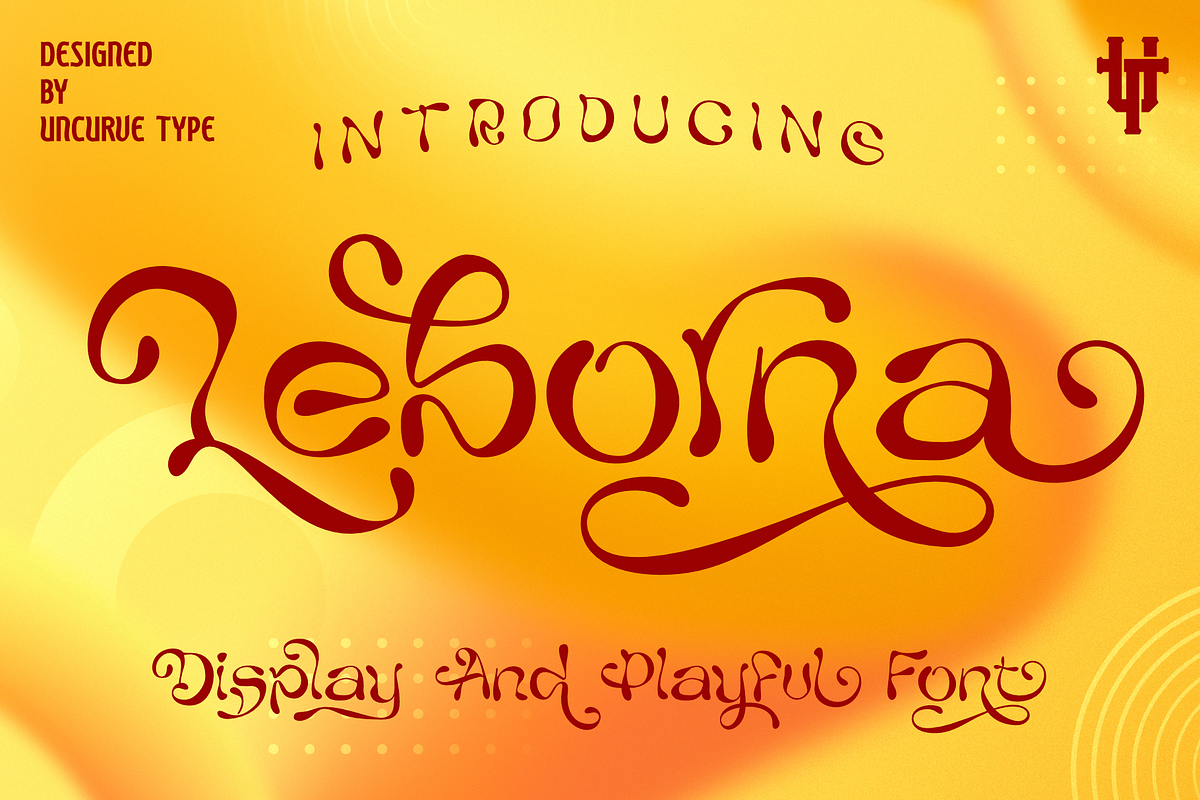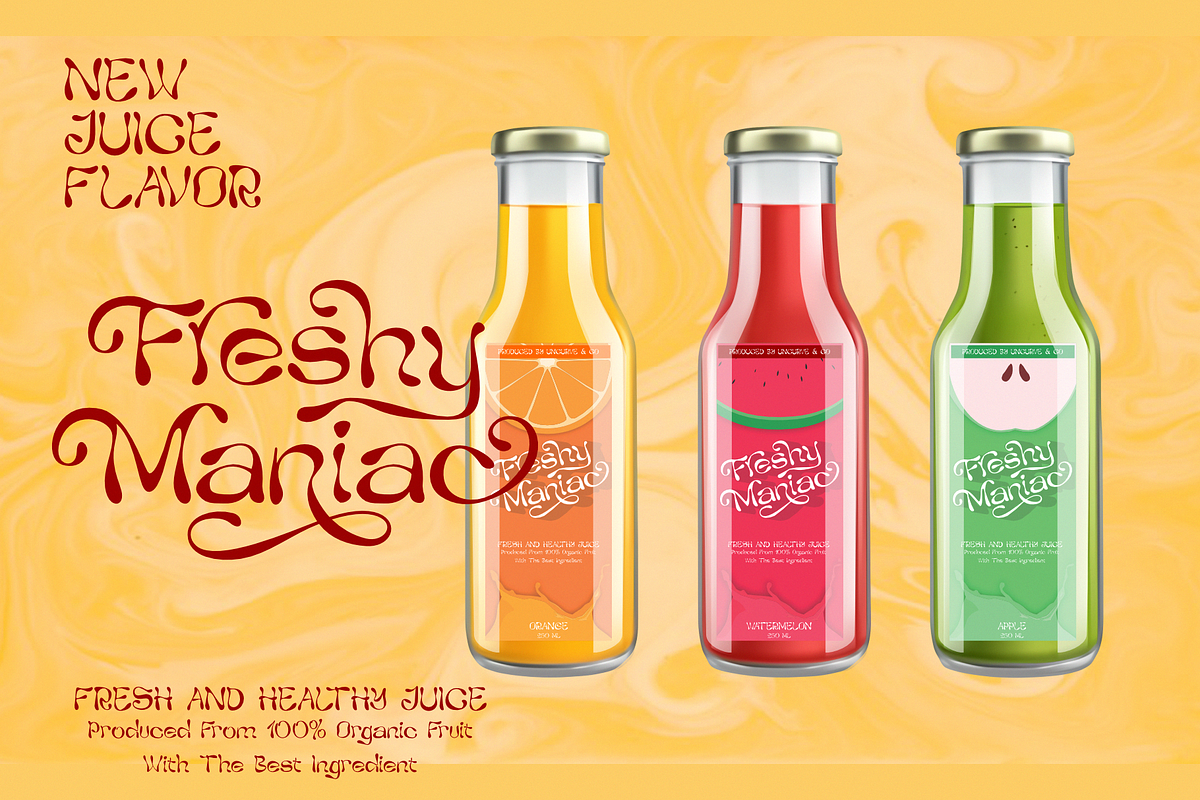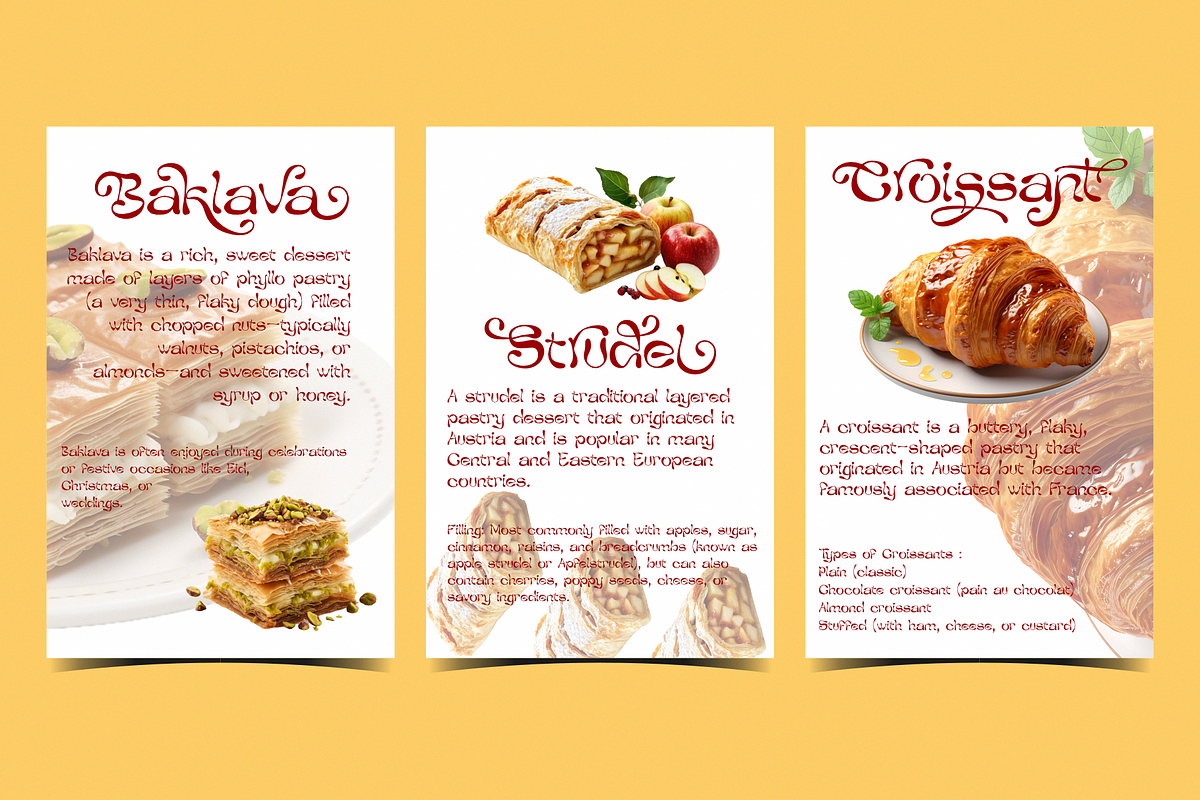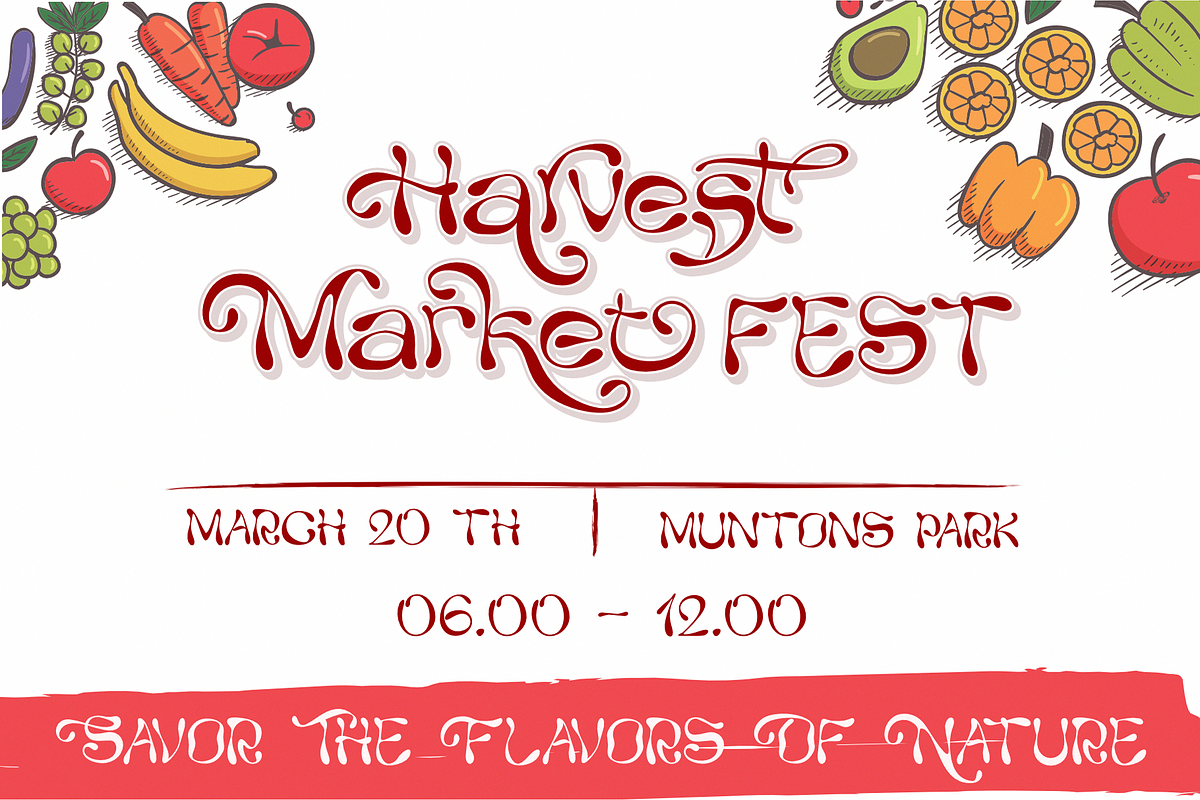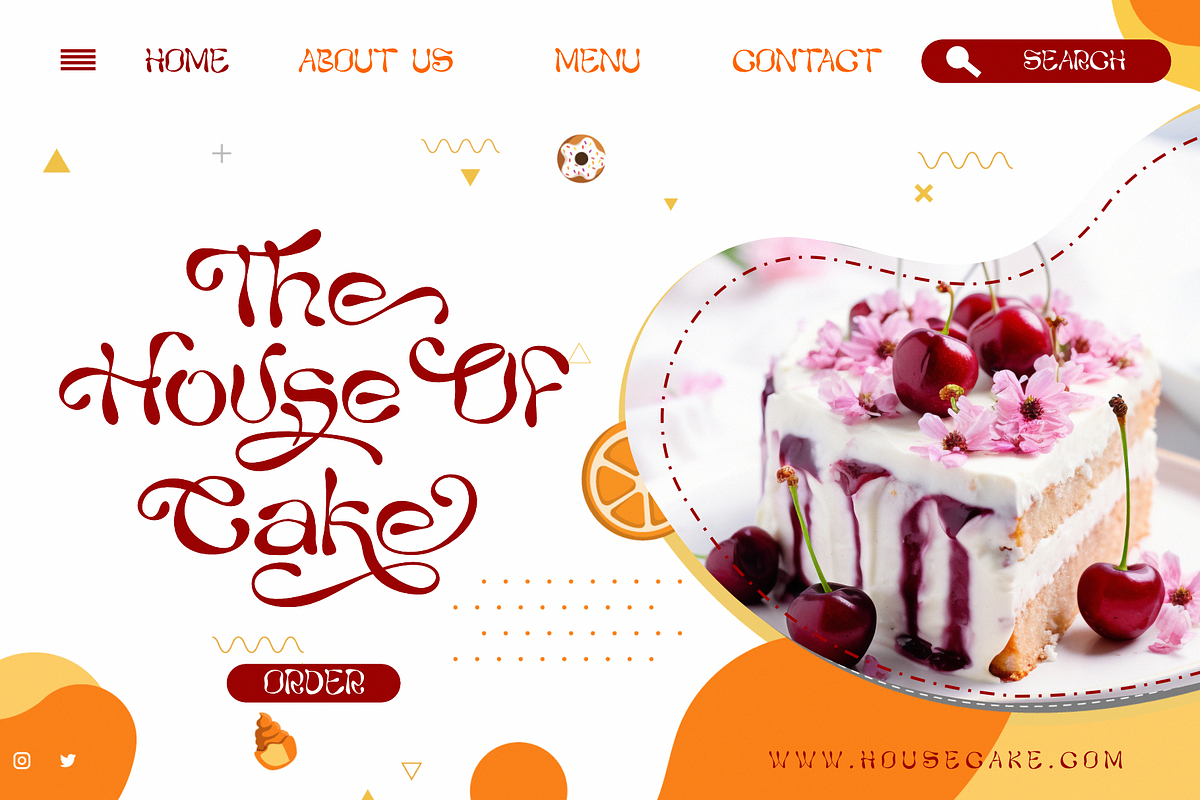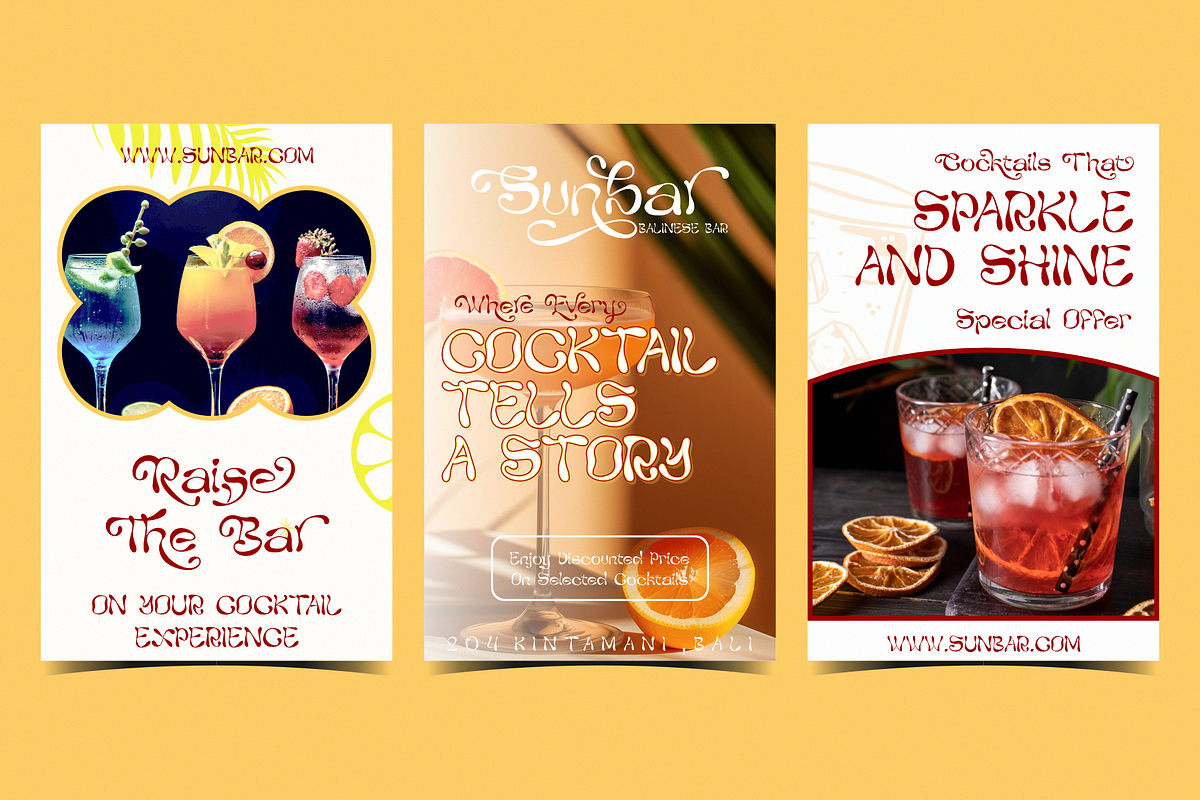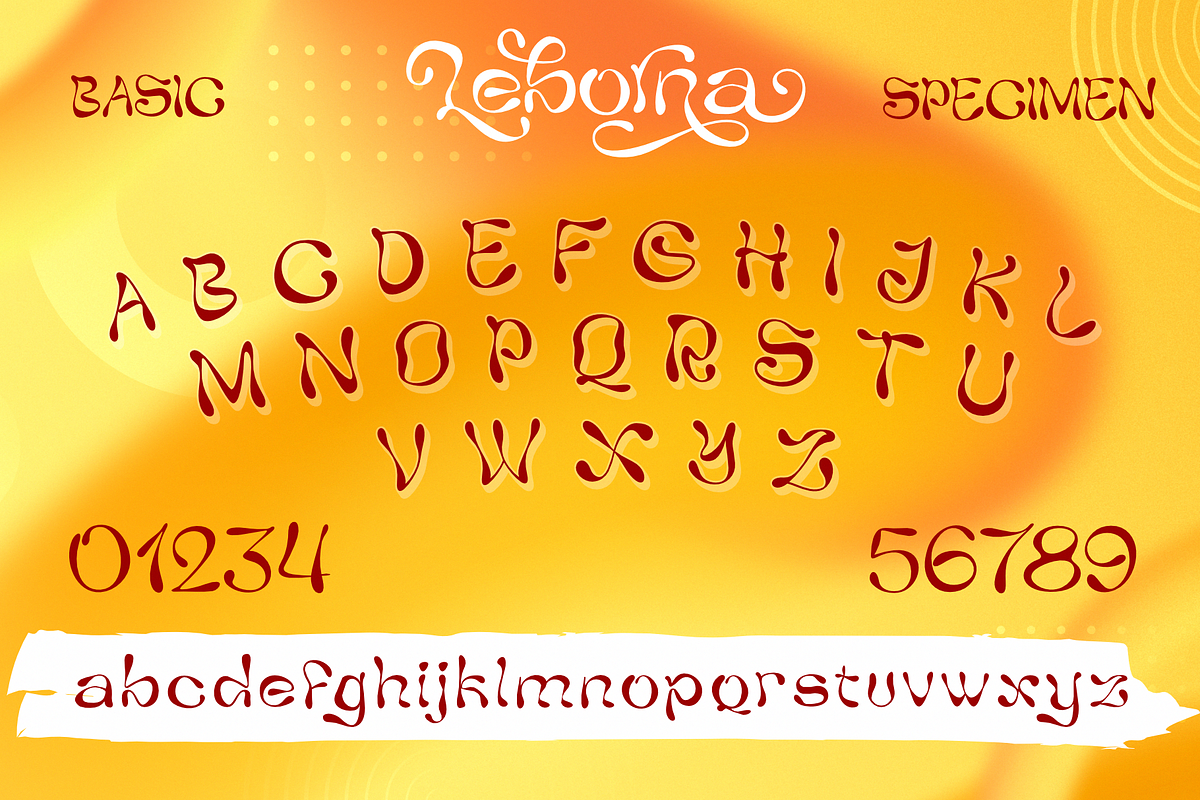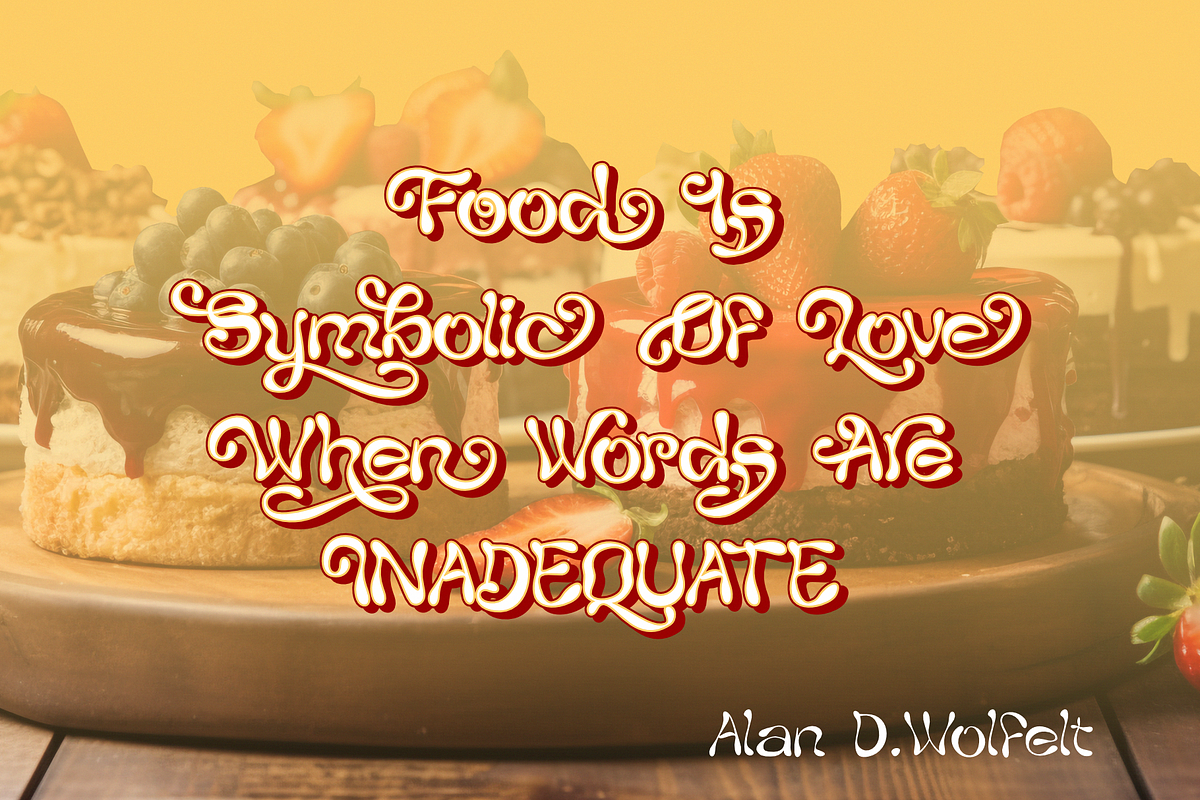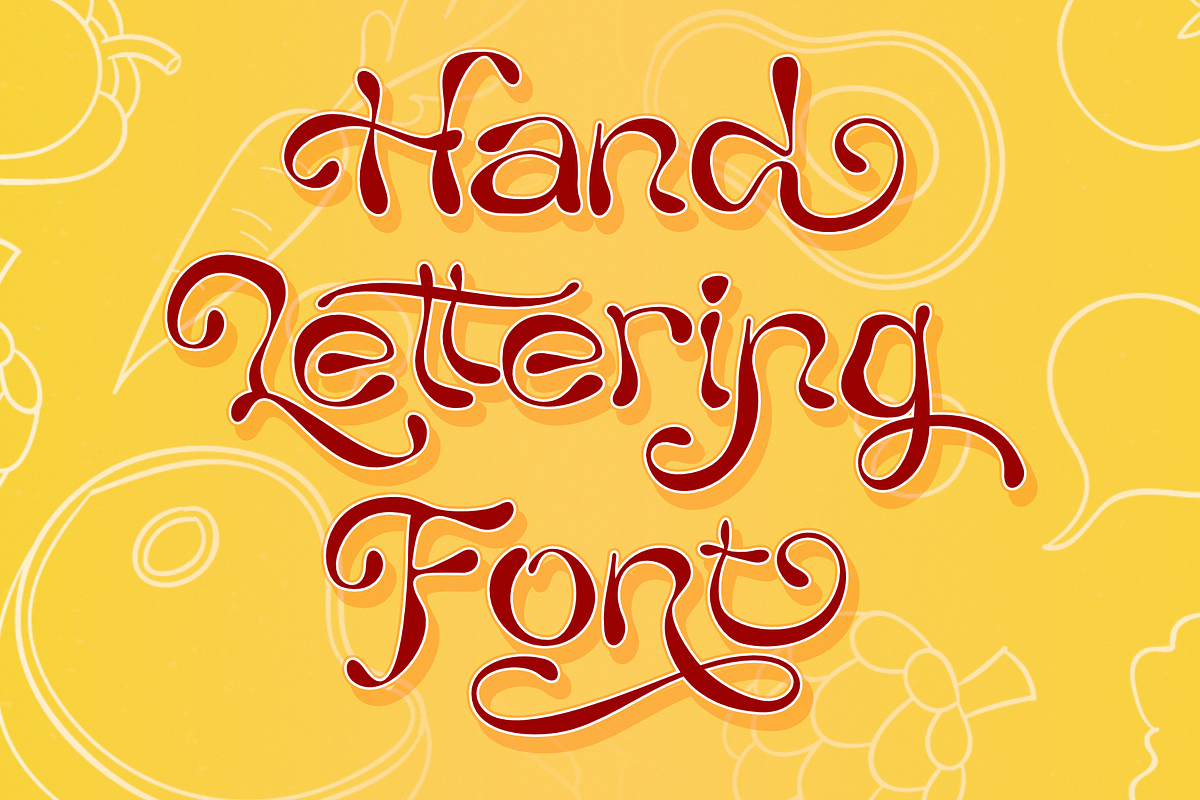
Leborna
Leborna – Display and Playful Font
Leborna is a bold and playful hand-drawn font inspired by fluid lettering and groovy retro vibes. With its liquid-style curves and a wide range of alternate characters, Leborna brings a raw, edgy, and eye-catching personality to any design—while keeping it fun and fully readable.
Perfect for projects that need a natural, expressive touch, Leborna works beautifully for retro summer themes, vibrant logos, postcards, greeting cards, food and drink posters, product labels, music covers, cartoon titles, cafe menus, and more. Whether you're designing for a brand, a packaging label, or a psychedelic poster, Leborna helps your message flow with charm and energy.